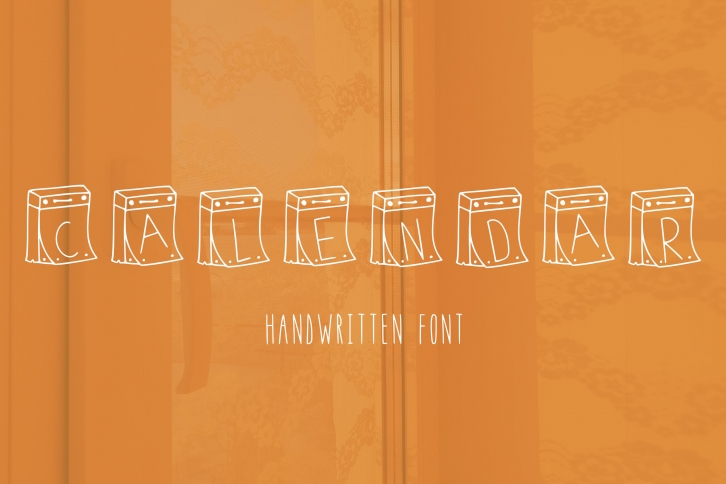
Calendar handwritten is a beautiful font that was designed by Croutons. It's a great choice for designers and creatives who need such a font. It was released on May 10, 2021 and the file size is 4.44 MB. Calendar handwritten may give a more youthful, expressive and casual look to your project. It is a very beautiful, refined, elegant, and high-quality font.